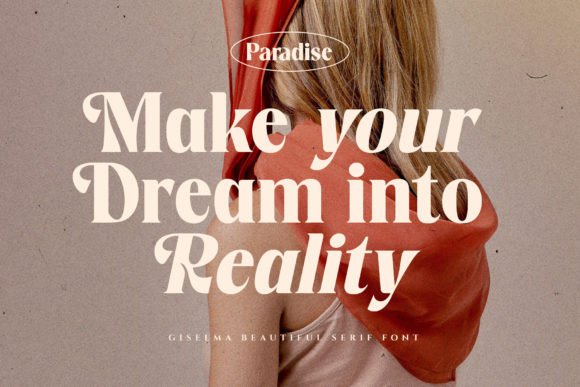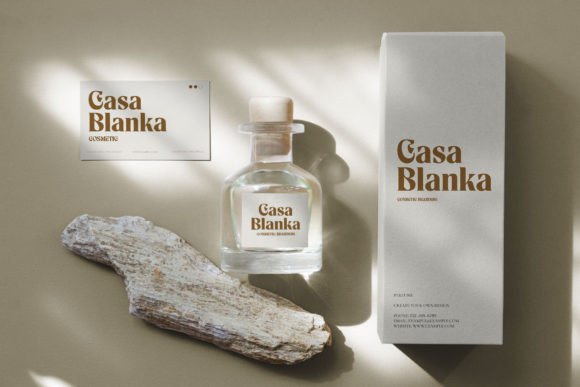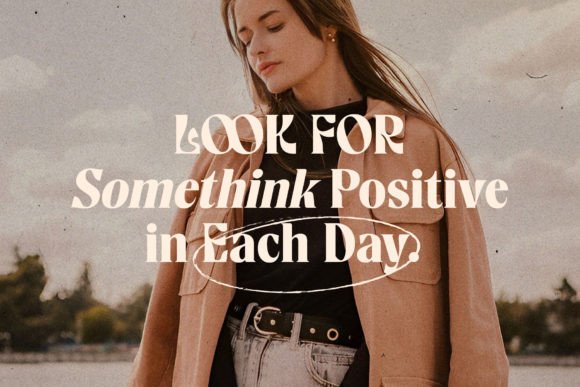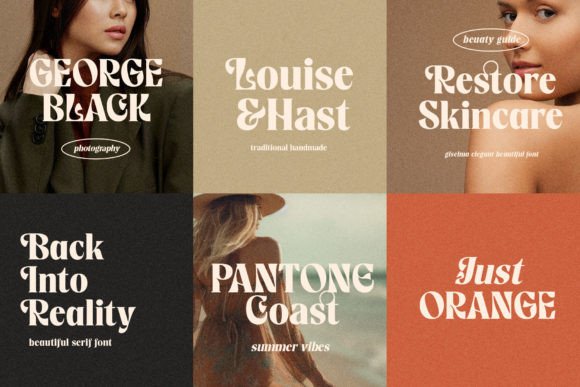
Giselma Font: Elevate Your Designs with a Bold and Assertive Serif Font
In the world of typography, a font can make or break a design. A well-chosen font can elevate your creation, convey the right message, and capture the audience’s attention. If you’re a designer or crafter looking for a font that can add a touch of sophistication and assertiveness to your work, look no further than Giselma Font. In this article, we’ll explore the features and benefits of Giselma, and why it’s an incredible asset to your font library.
What is Giselma Font?
Giselma is a bold and assertive serif font designed to make a statement. Its sturdy and confident appearance makes it perfect for a wide range of applications, from headings and titles to body text and captions. Whether you’re working on a branding project, a website, or a print design, Giselma is a versatile font that can adapt to any topic or style.
Key Features of Giselma Font
- Bold and Assertive: Giselma’s bold strokes and assertive lines make it a perfect choice for designs that require a strong and confident look.
- Serif Style: The font features traditional serif elements, adding a touch of elegance and sophistication to your designs.
- Versatile: Giselma can be used for a wide range of applications, from digital designs to print materials.
- Legible: The font’s clear and readable design ensures that your message gets across, even at smaller font sizes.
Benefits of Using Giselma Font
So, why should you choose Giselma Font for your next design project? Here are some benefits that make Giselma an attractive addition to your font library:
- Elevate Your Designs: Giselma’s bold and assertive style can instantly elevate your designs, making them more engaging and attention-grabbing.
- Convey Confidence: The font’s confident and sturdy appearance conveys a sense of trust and reliability, perfect for brands and businesses looking to establish a strong identity.
- Save Time: With Giselma, you can create professional-looking designs quickly and easily, without having to spend hours searching for the perfect font.
- Stand Out: Giselma’s unique style ensures that your designs stand out from the crowd, making them more memorable and impactful.
Who Can Benefit from Giselma Font?
Giselma Font is perfect for a wide range of designers and crafters, including:
- Graphic Designers: Giselma is a versatile font that can be used for a variety of graphic design projects, from branding and logos to brochures and posters.
- Web Designers: The font’s legible and clean design makes it perfect for web design projects, including website headers, titles, and body text.
- Print Designers: Giselma is a great choice for print designers working on projects such as business cards, flyers, and magazines.
- Crafters: Whether you’re creating handmade cards, scrapbooking, or DIY projects, Giselma can add a touch of sophistication and elegance to your work.
In conclusion, Giselma Font is an incredible asset to your font library, offering a bold and assertive serif style that can elevate any design. Its versatility, legibility, and unique style make it perfect for a wide range of applications, from graphic design to web design and print design. Whether you’re a designer or crafter, Giselma is a great choice for anyone looking to add a touch of sophistication and confidence to their work.
So, why not give Giselma Font a try? With its impressive features and benefits, it’s sure to become a go-to font in your design arsenal.